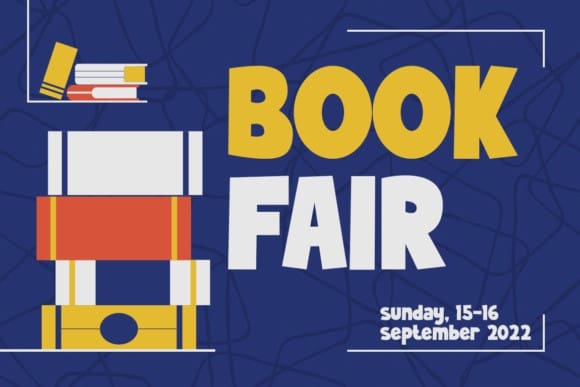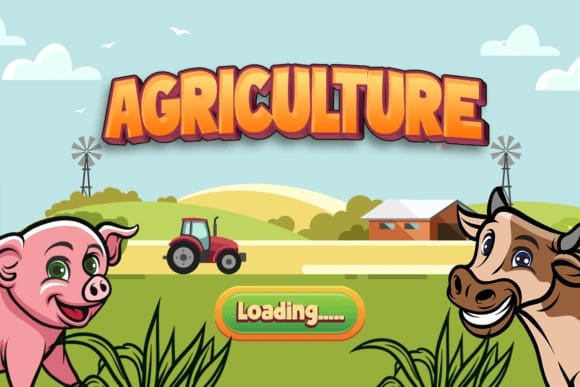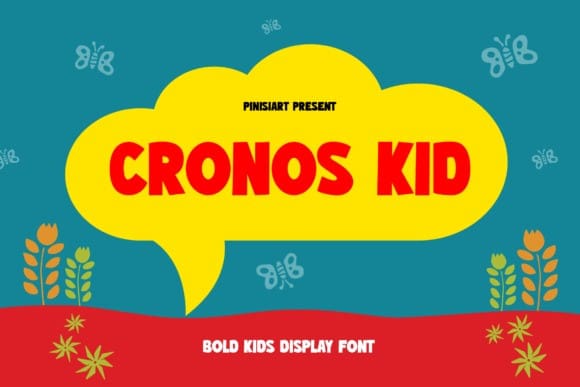
Cronos Kid Font
Cronos Kid Font – Bold Kids Display Font. A font that pops in and brings a smile. Bold and funny shapes will make your word get all the attention you need.
Suit perfectly for pop culture books market, online games, teens event posters, school supplies font, posters, movie titles, youtube covers, youtube thumbnails, social media page covers, and so on…